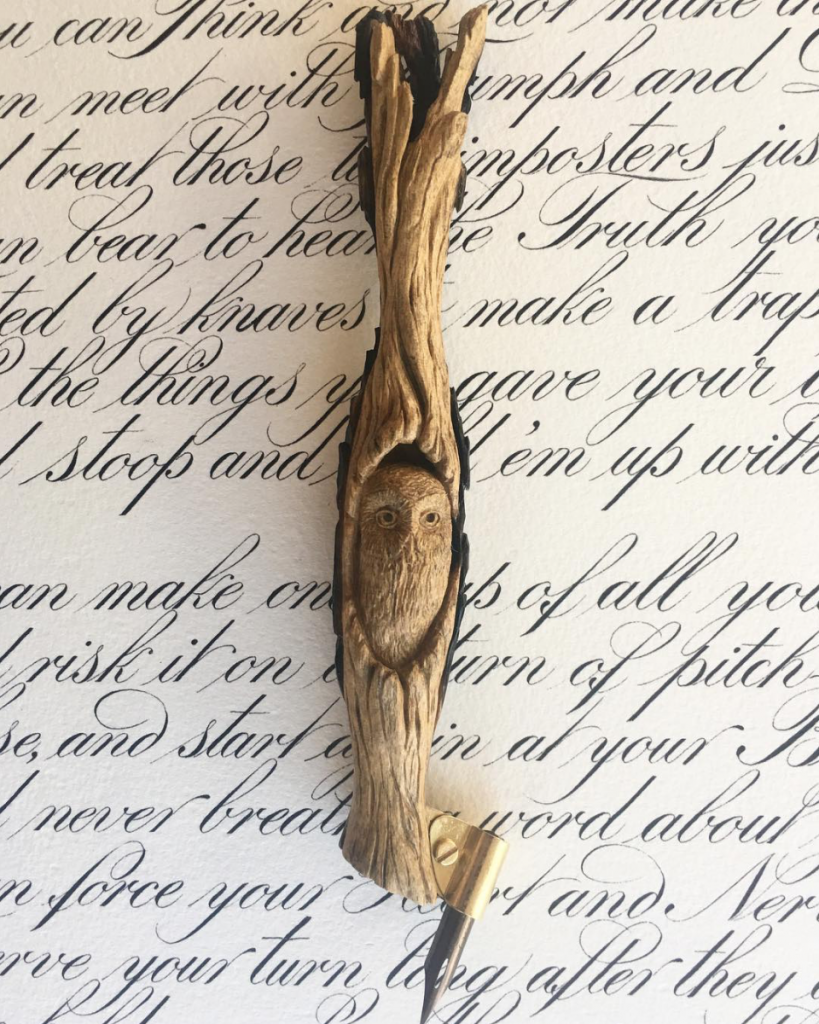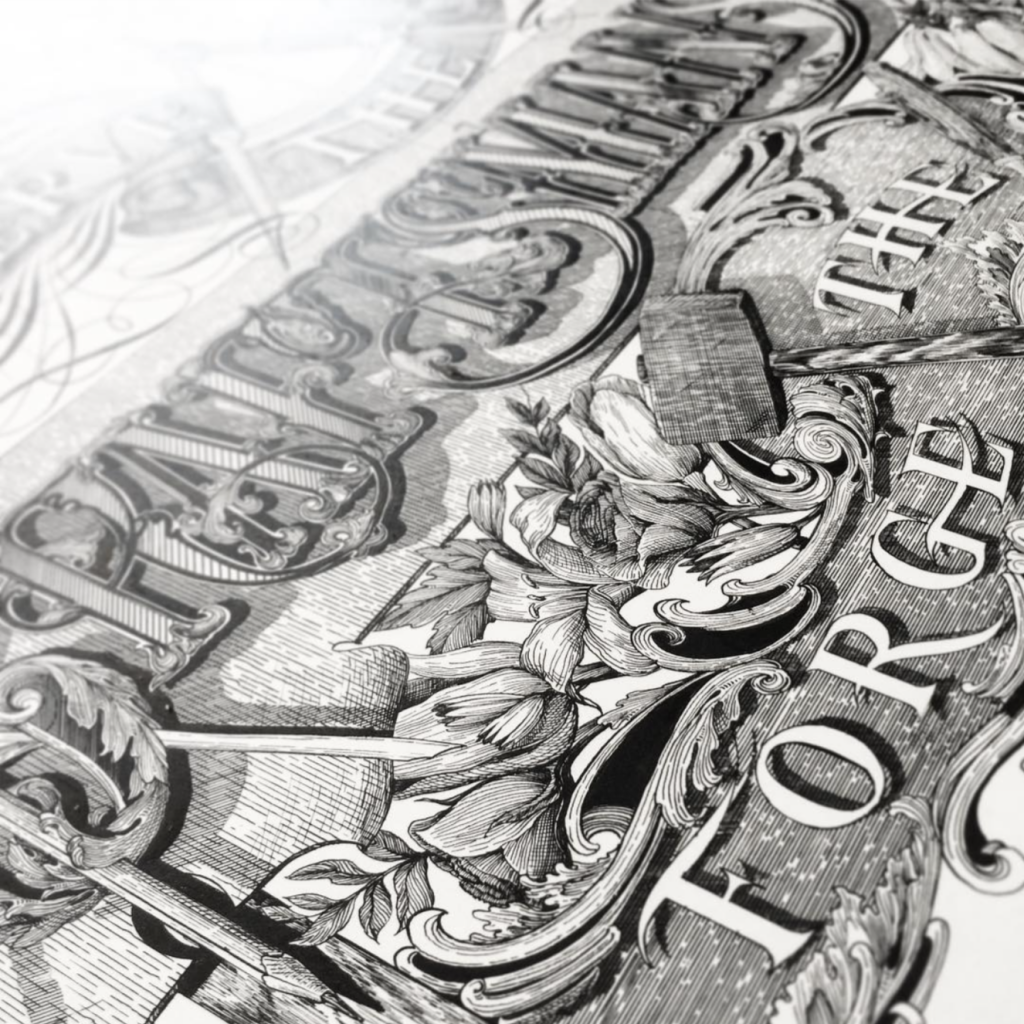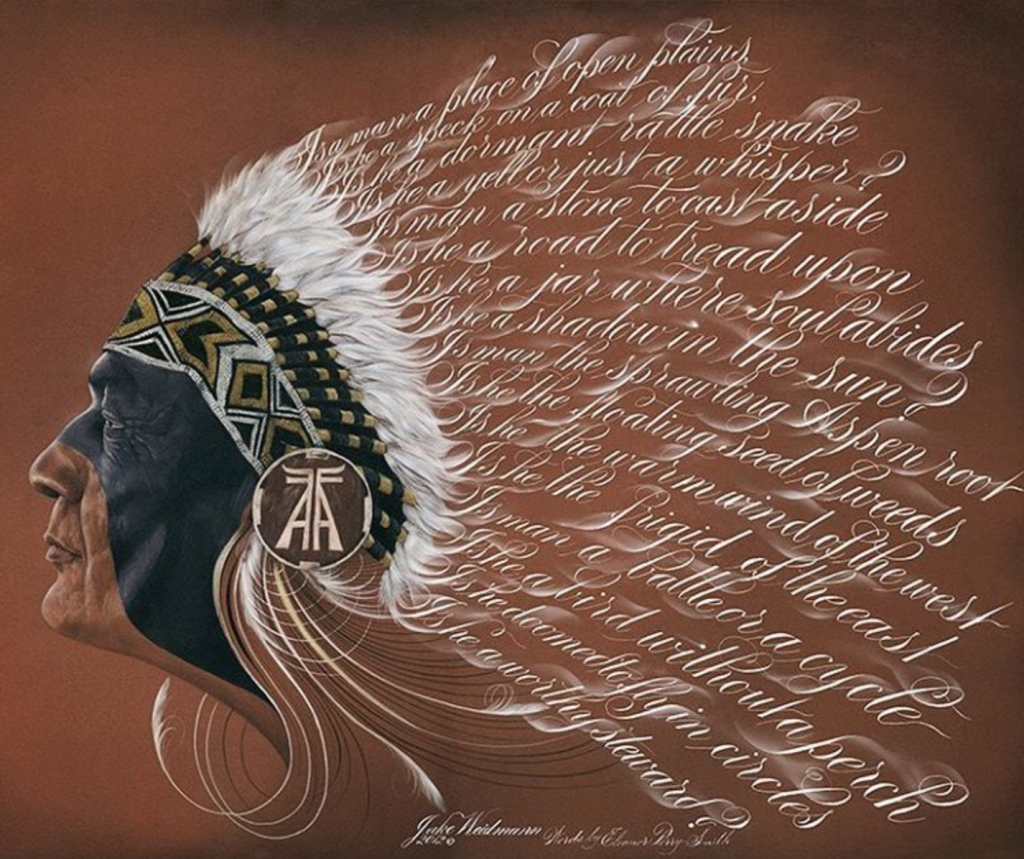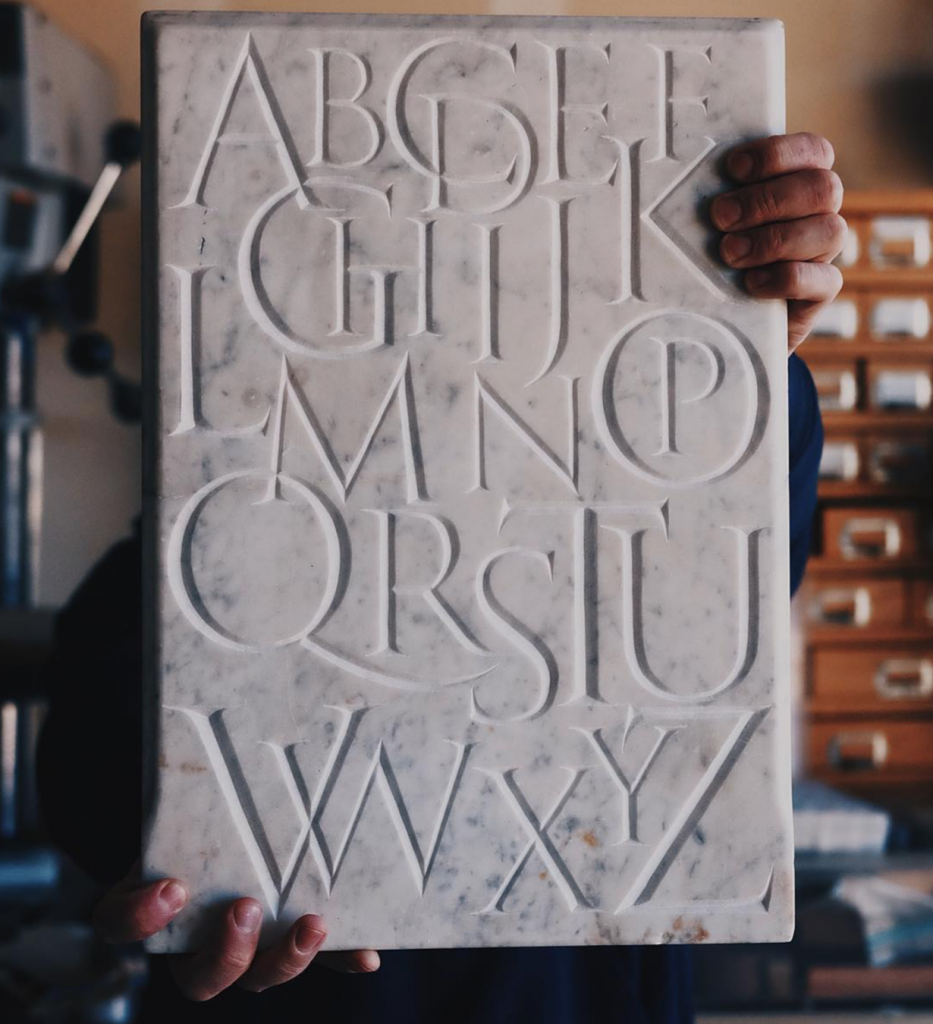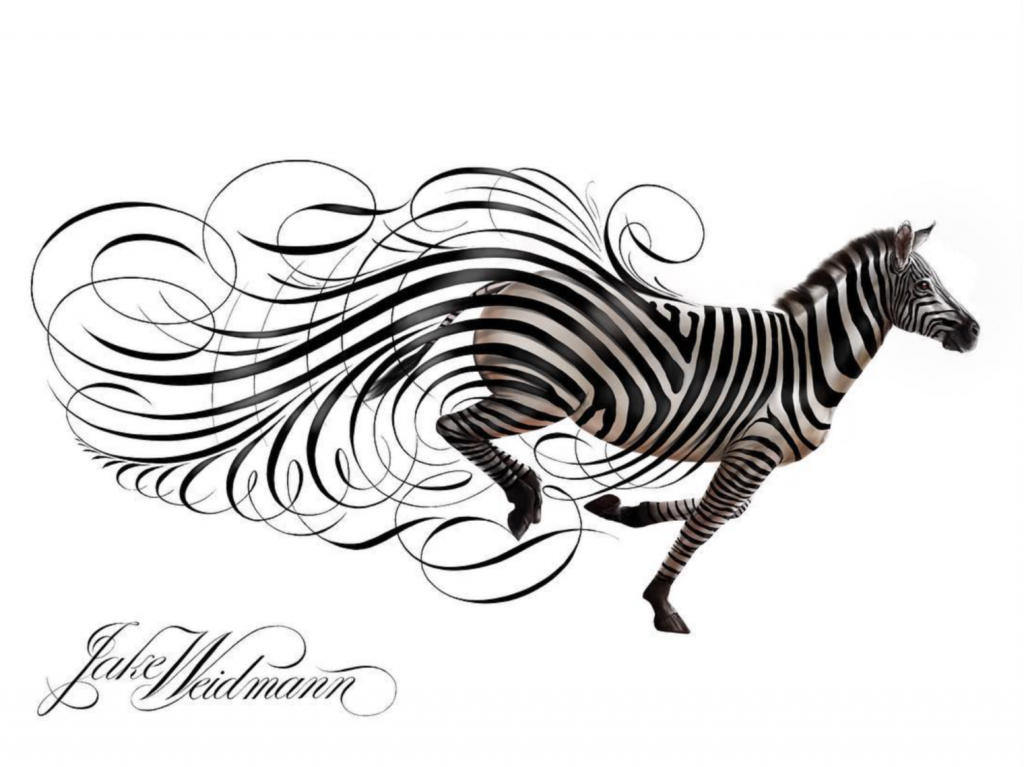
Lettering Legend - Jake Weidmann (Master Penman) Interview
Jake Weidmann is one of the most talented calligraphy artists you are ever likely to come across. He has truly mastered the art of the flourish and creates absolutely beautiful letterforms. It is difficult to actually find the words to portray how incredible and perfected Jake's work is. Jake was certified a Master Penman in 2011 by 'The International Association of Master Penmen, Engrossers, and Teachers of Handwriting' (IAMPETH). When developing the Apple Pencil, Jake was sought out by Apple to help inform the tool that so many artists are now adopting. He also worked with the developers of the Procreate app to aid in refining calligraphy based features. These are just a small selection of Jake's many achievements. Jake's impressive array of skills have stood out to so many across the world.
Calligraphy is not the only skill Jake has developed to such a high standard. He makes accurate, detailed drawings, he is amazing at illustrative lettering and he is an experienced stone and wood carver too. In addition to this, Jake has also devised his own unique type of calligraphy pen holder which you can periodically buy from his website. Jake is continually sharing the progress of his work with aspiring lettering artists to be on social media, and is actively helping to keep the art of calligraphy and penmanship alive. These wonderful attributes more than qualify Jake as a 'Lettering Legend'.
Hannah Weidmann is Jake's wife and is also a talented editor. Hannah very kindly collected Jake's interview responses and edited them, she also put her editing touch on a couple of the questions I asked to suit the flow of the responses provided by Jake. Along with Jake, Hannah has recently started writing for the the website Calligrafile which I believe launched towards the end of last year.
In this interview, you can learn about what skill Jake started out mastering first, how Jakes skills link to one another, the importance of patience, where Jake would like to see the Master Penman program go in the future and more.
We’ve all seen or read about the part in Harry Potter where the famous wizard shops for a wand, and a wand selects him. Calligraphy penholders are not unlike wands, they can be carved beautifully, can be made from different types of wood and each one is unique. What calligraphy penholder do you think would choose you and why?
"Funny thing, I’ve had a lot of my followers comment on my penholders with the same references to Harry Potter. I have to believe that my personal ergonomic design would choose me. I developed this design a few years back when I first started making penholders. When I was introduced to the calligraphy world, there was a lack of good materials, namely pens. When I couldn’t find the penholder that was right for me, I decided to make it for myself. I later perfected my design and began selling it through my online gallery. I studied the grip of celebrated masters and formulated them into my penholder. It gently informs new and experienced calligraphers where to place the hand to encourage full-arm movement. Almost everyone who has purchased this pen tells me how perfectly it fits their hand. But if we’re making Harry Potter references here, I’ll let the wand choose the wizard…"
You display remarkable skill at drawing, illustrating and calligraphy letterforms. Oftentimes, your work integrates drawing and lettering together. Which skill did you develop first, drawing, illustrative lettering or calligraphy?
"Of all the art forms that I do, drawing is my oldest friend. It is what has matured my skills as an artist and what still hones them today. While I am constantly experimenting with new art forms, drawing seems to be one I can always go back to with ease."
Alongside calligraphy and illustrative lettering you’ve been carving letters into stone. What drew you to this type of art? Are there techniques that can be carried over from calligraphy which can also be applied to carving letters?
"Everything I do is related. Drawing feeds into painting, painting into calligraphy, calligraphy feeds into carving and carving back to drawing. Every technique of every art form I’ve played with relates to one of my other art forms and makes me better overall as an artist and penman. It’s why I could never choose just one art form, and never will. I hope I never stop experimenting and finding the correlation in all of my work."
Exercising a lot of patience is necessary throughout your process. Do you have any tips for those that struggle with slowing things down and not rushing when creating?
"You’ve heard the old adage, “nothing worth having comes easy.” Well, no art piece worth creating was ever easily made. In fact, the greatest art tests the limits of patience. My art has taught me this well and will continue to for as long as my hands are at work."
At present, you’re the world's youngest certified Master Penman. Though the program is currently closed, where do you hope to see the program go in the future? Would you like to mentor a new generation of Master Penman at some point?
"I “grew up” in IAMPETH, being the youngest attendee, by several decades, for many years before calligraphy and hand lettering started creating waves in the art world. So many of its members are family to me. I hope that one day the master penman program will be revived to give the same opportunity I was given. And though I don’t take on apprentices or formally mentor during this point in my career, I hope that my work can serve as inspiration for everyone who views it for the unforeseeable future."
What advice or tips would you give those first starting out at lettering?
"Perfect the basics. You won’t grow until you do."